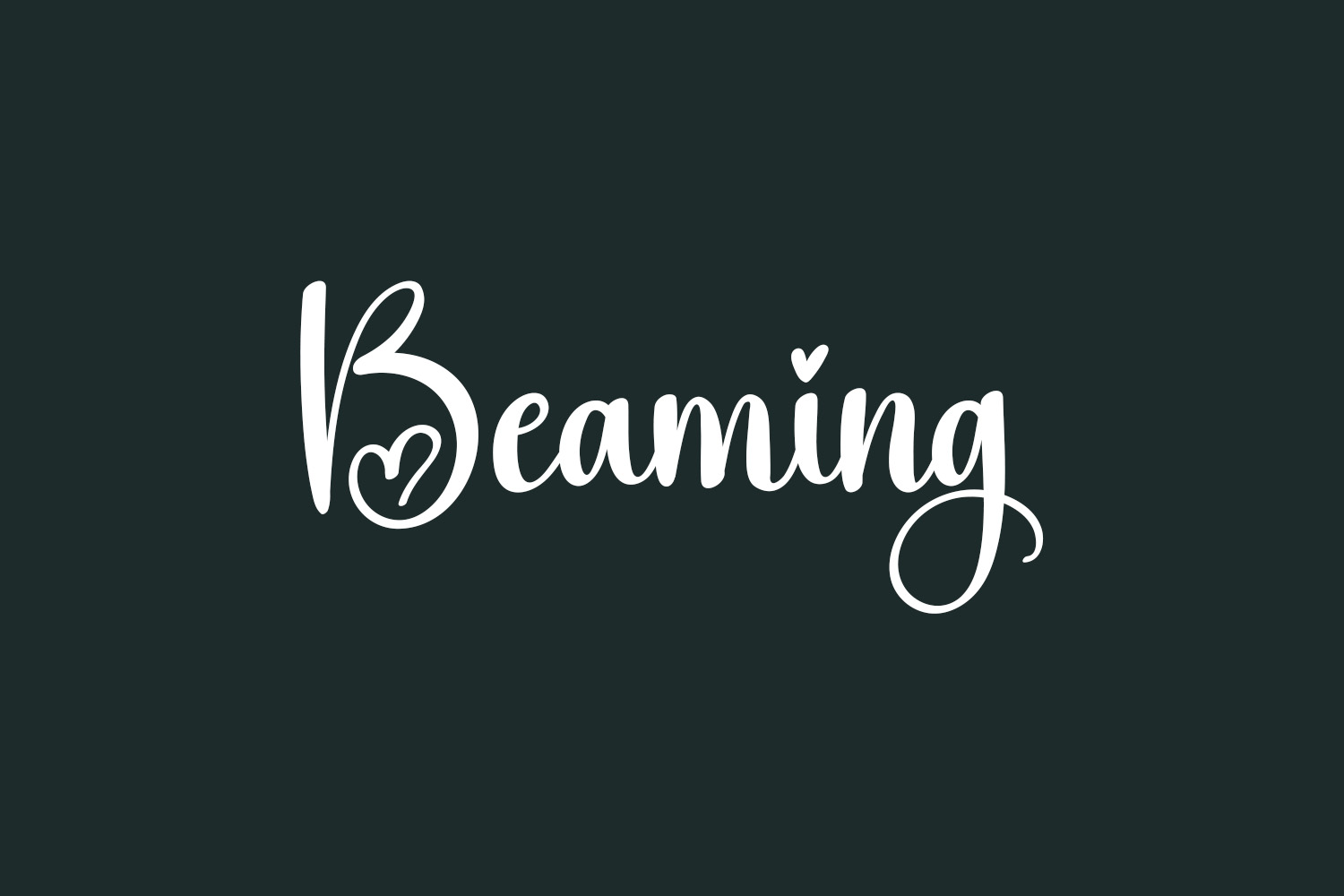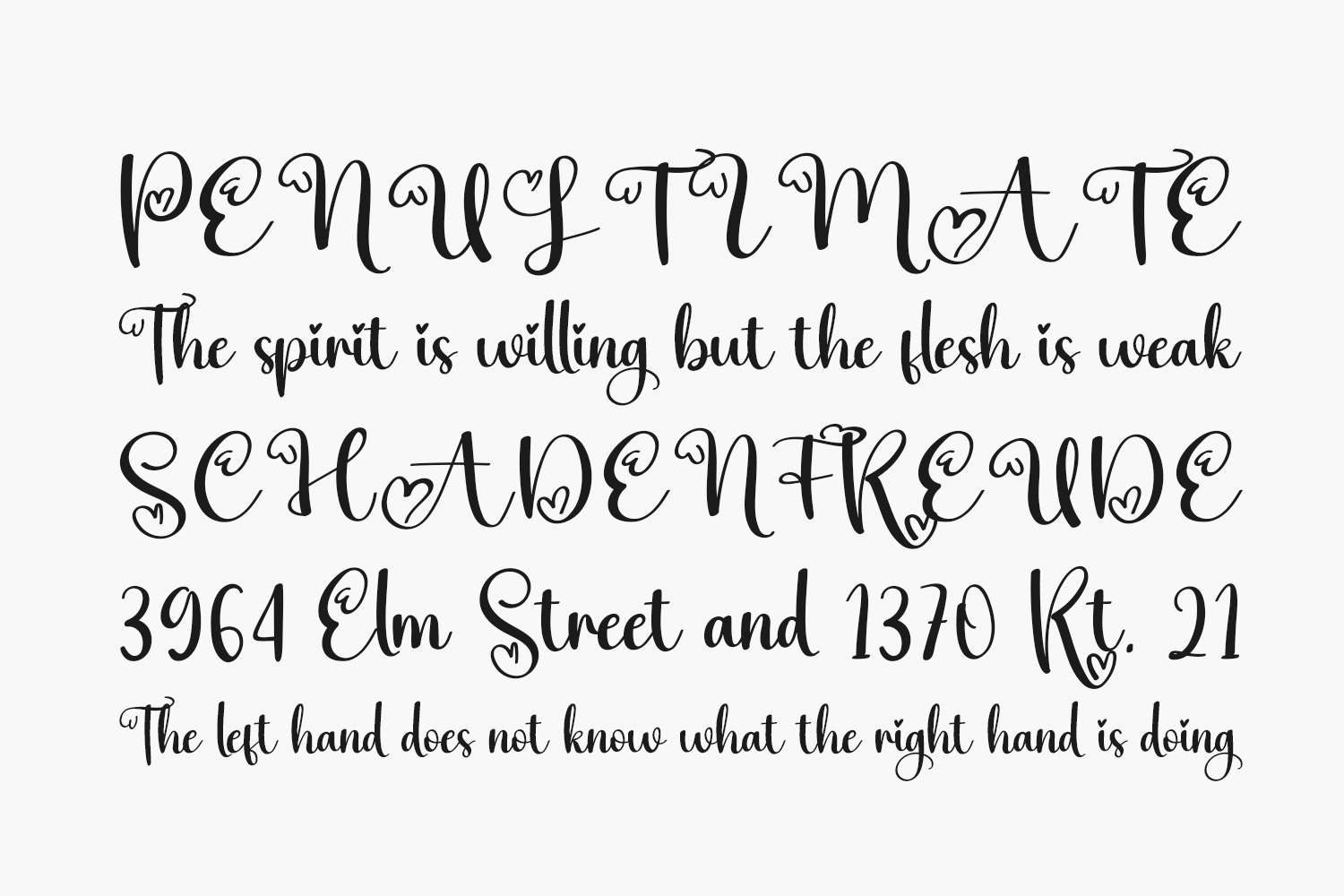
The freshest lettering style from Beaming Free Font is ideal for showcasing on walls, wedding invitations, logos for social media posts, advertisements, product packaging, product designs, labels, photography, watermarks, invitations, stationery, and any project in need of a handwritten touch. Beaming Free Font is free for personal use only. Please purchase the full version for commercial use.
Designed by Scratchones